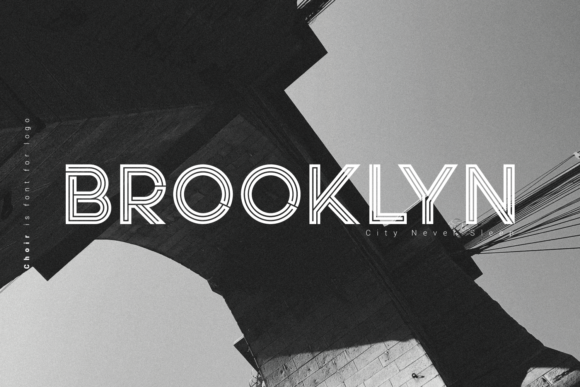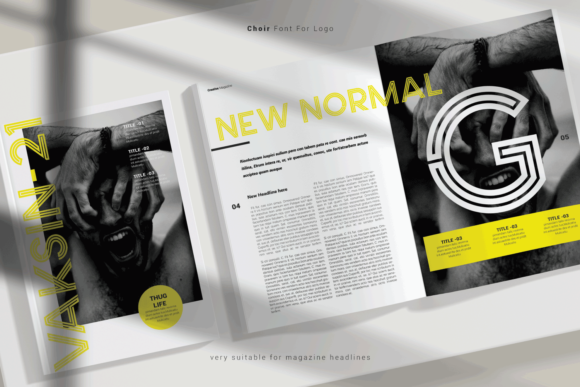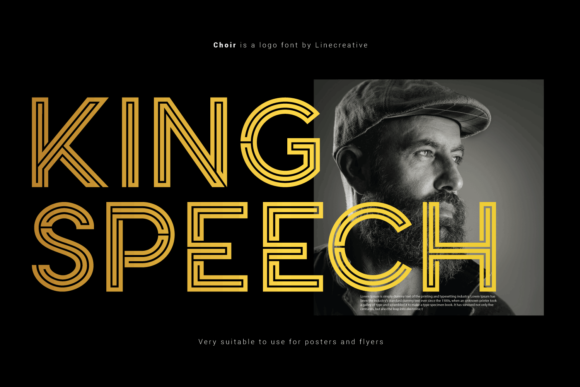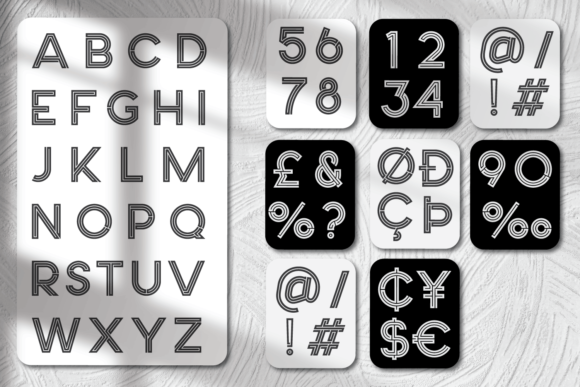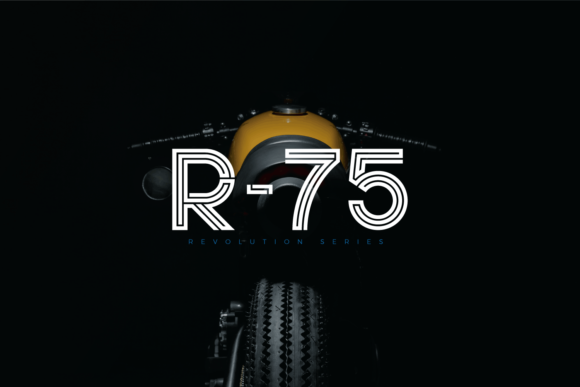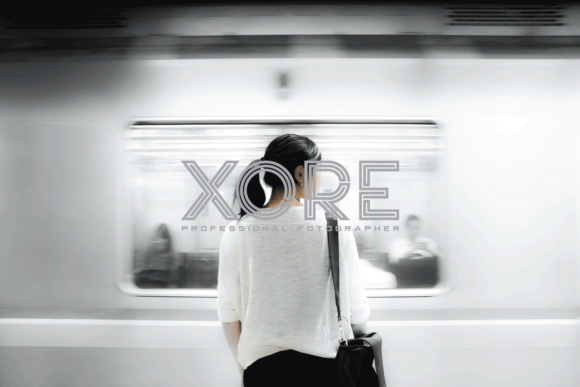
The Choir Font: A Modern and Cool Display Font for Your Creative Projects
I’ll never forget the time I was working on a project for a client who wanted a unique and modern font to make their brand stand out. I spent hours scouring the internet for the perfect font, but nothing seemed quite right. That was until I stumbled upon the Choir font. With its sleek lines and cool display, it was exactly what I needed to bring my client’s vision to life. In this article, I’ll be sharing my experience with the Choir font, including what I love about it, its limitations, and how to use it on different platforms.
An Honest Review of Choir Font
What I Love About Choir Font
- ✨ Unique and modern design: The Choir font has a distinctive look that sets it apart from other fonts. Its sleek lines and cool display make it perfect for adding a touch of sophistication to any design.
- ✅ Highly versatile: Whether you’re designing a website, business card, or social media post, the Choir font is ideal for a wide range of creative projects.
- 🎉 Easy to read: Despite its modern design, the Choir font is surprisingly easy to read, making it perfect for body text as well as headings.
While the Choir font is an excellent choice for many projects, there are a few quirks to be aware of:
- 🤔 Limited support for non-English characters: The Choir font may not support non-English characters, so it’s essential to check compatibility before using it for multilingual projects.
- ⚠️ Not suitable for body text: While the Choir font is easy to read, it’s not designed for long-form body text. It’s best used for headings, titles, and short paragraphs.
The Designer Inspiration Behind Choir Font
The Choir font was designed by a team of typographers who wanted to create a modern and cool display font that would stand out in a crowded design landscape. Inspired by the clean lines and minimalist aesthetic of modern design, the Choir font is perfect for designers who want to add a touch of sophistication to their projects.
| Font Name | Choir Font |
| Author | Line creative |
Q: What is the Choir font best used for?
A: The Choir font is best used for headings, titles, and short paragraphs. It’s perfect for adding a touch of sophistication to any design.
Q: Is the Choir font available in different weights?
A: Yes, the Choir font is available in different weights, including regular, bold, and italic. This allows you to add more variation and creativity to your design.